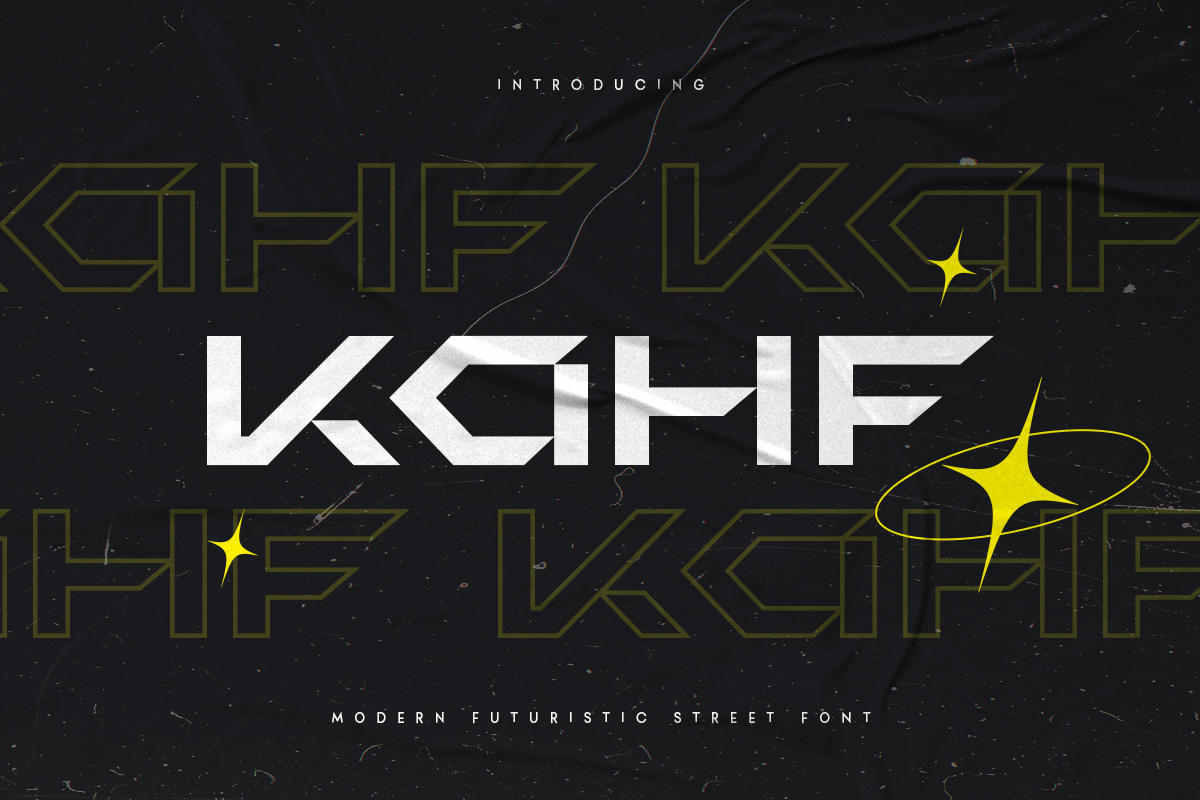
KAHF - Modern Futuristic Street Font
Create standout futuristic designs with KAHF, a bold sci-fi street font engineered for modern technology projects. KAHF delivers the perfect blend of street-style edge and futuristic sophistication, making it ideal for cryptocurrency branding, technology interfaces, film titles, and sci-fi themed projects. This versatile typeface helps your typography stand out with its clean geometric forms and cutting-edge aesthetic. The font package includes both regular and outline style variations, giving y...